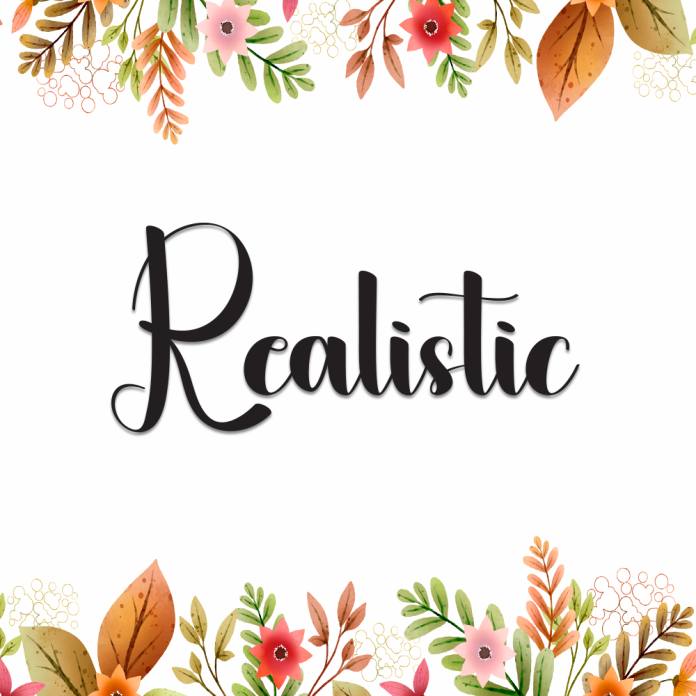
Realistic is a smooth and authentic handwriting font that mimics the natural flow of pen on paper. Designed to reflect the casual elegance of real human writing, this font brings warmth and personality to your text.
Ideal for personal notes, branding projects, quotes, social media graphics, and any design that needs a personal, heartfelt touch.
Natural handwritten style
Clean, smooth strokes for easy readability
Perfect for logos, invitations, journals, and more
Bring a touch of authenticity to your designs with the effortless charm of Realistic!